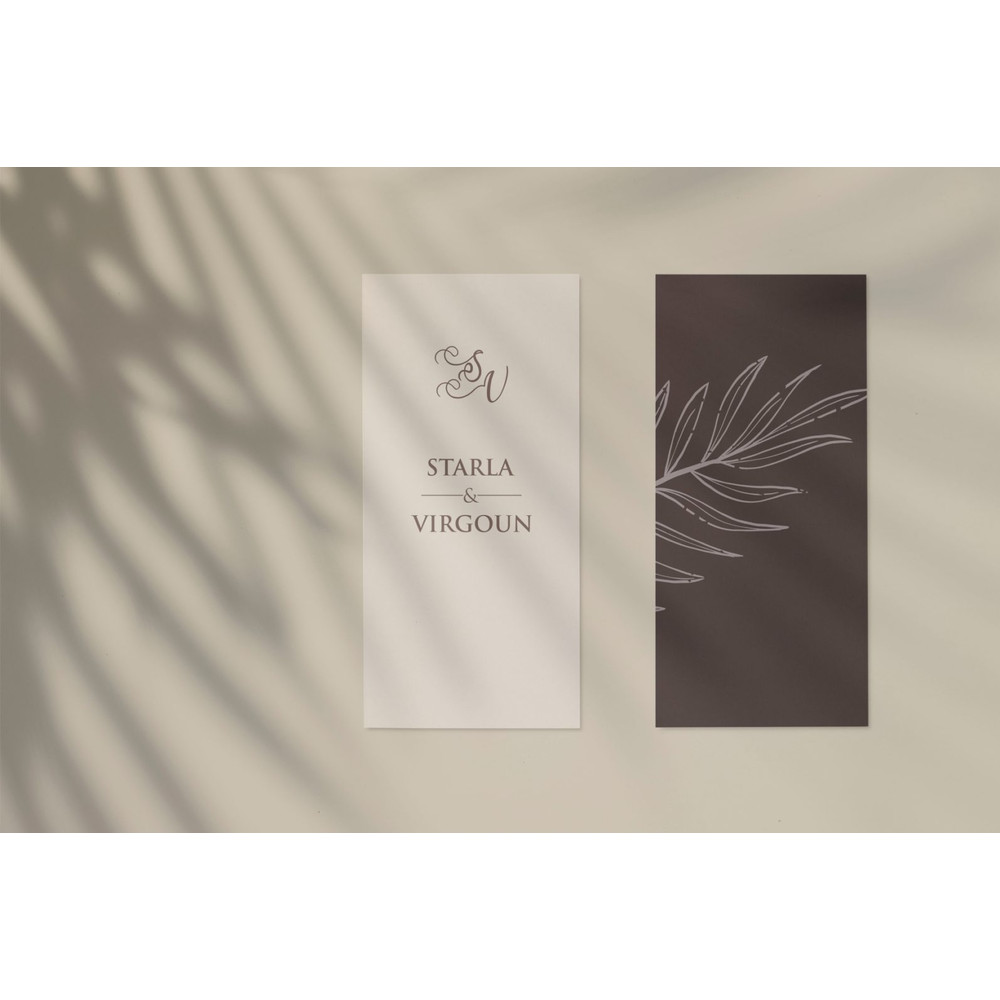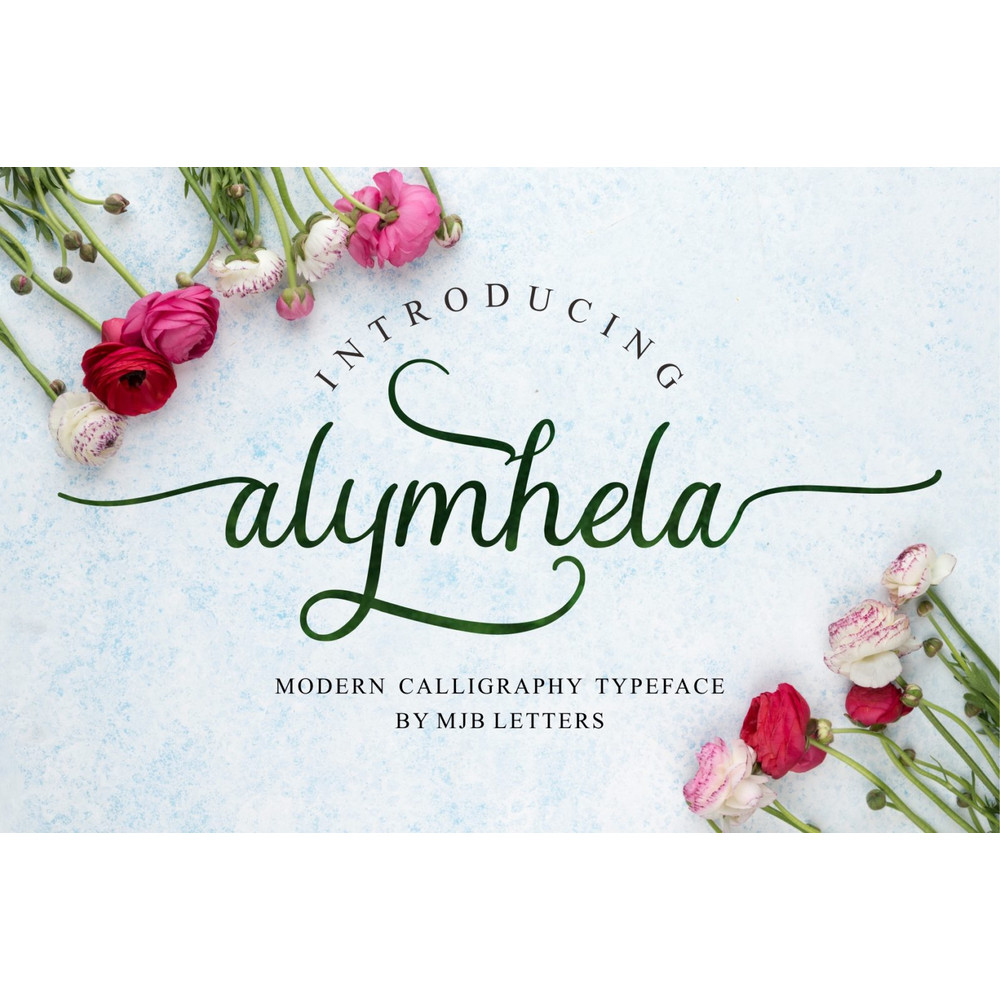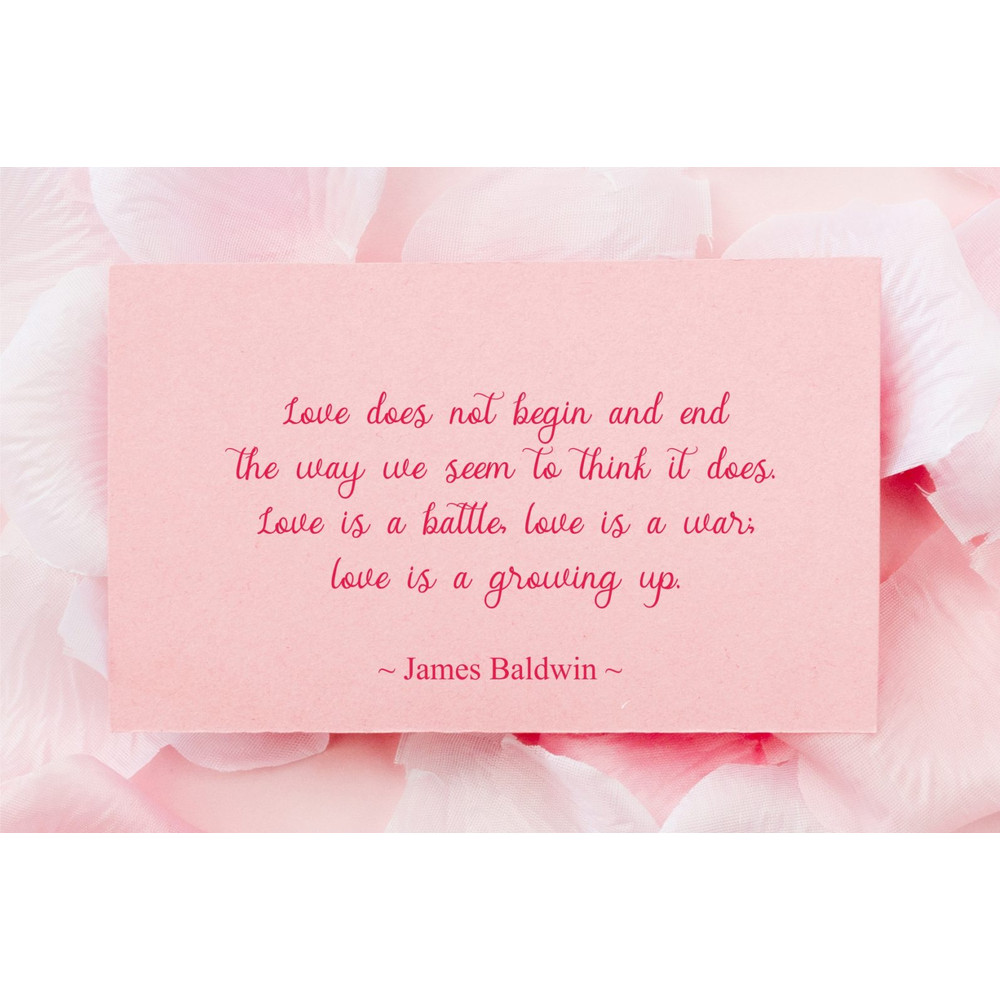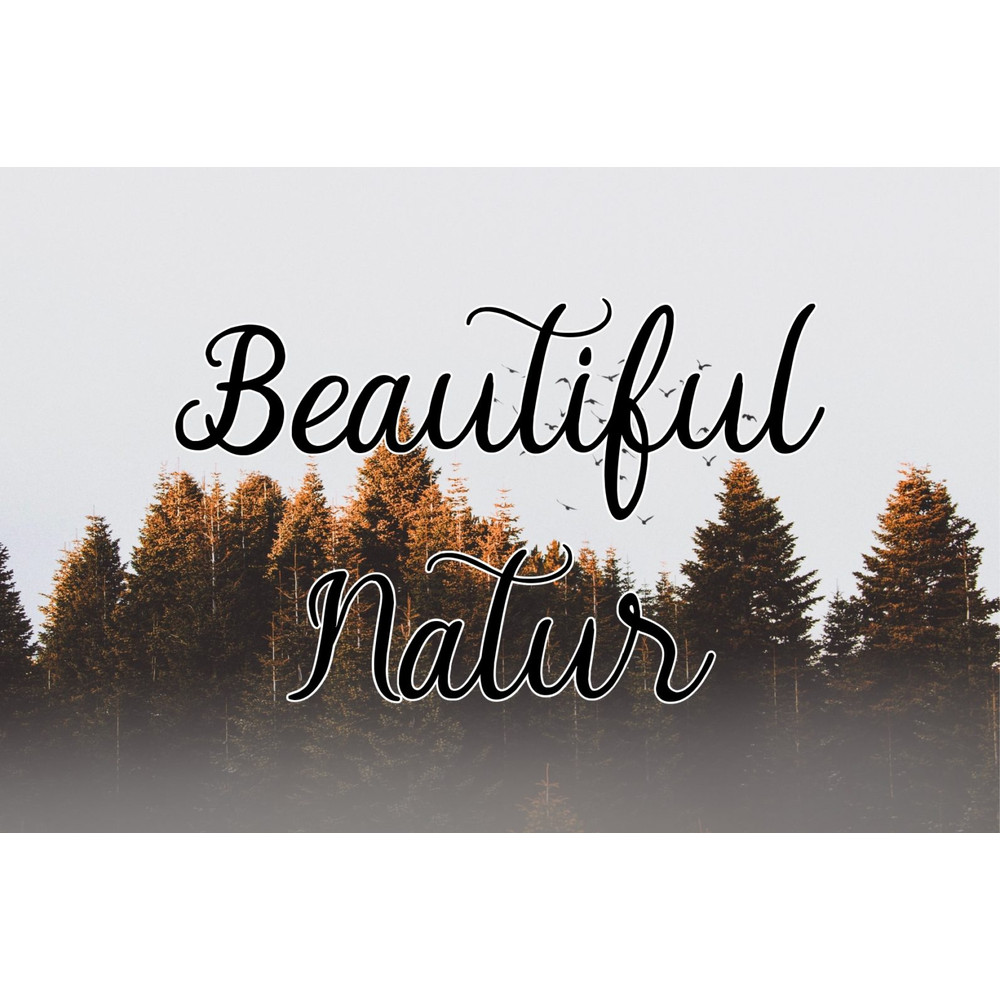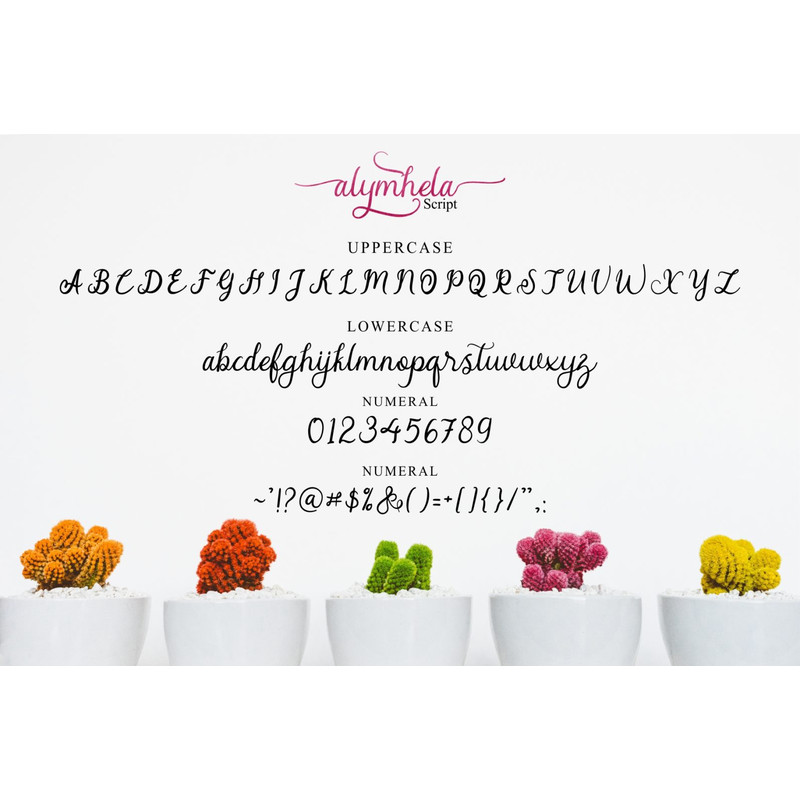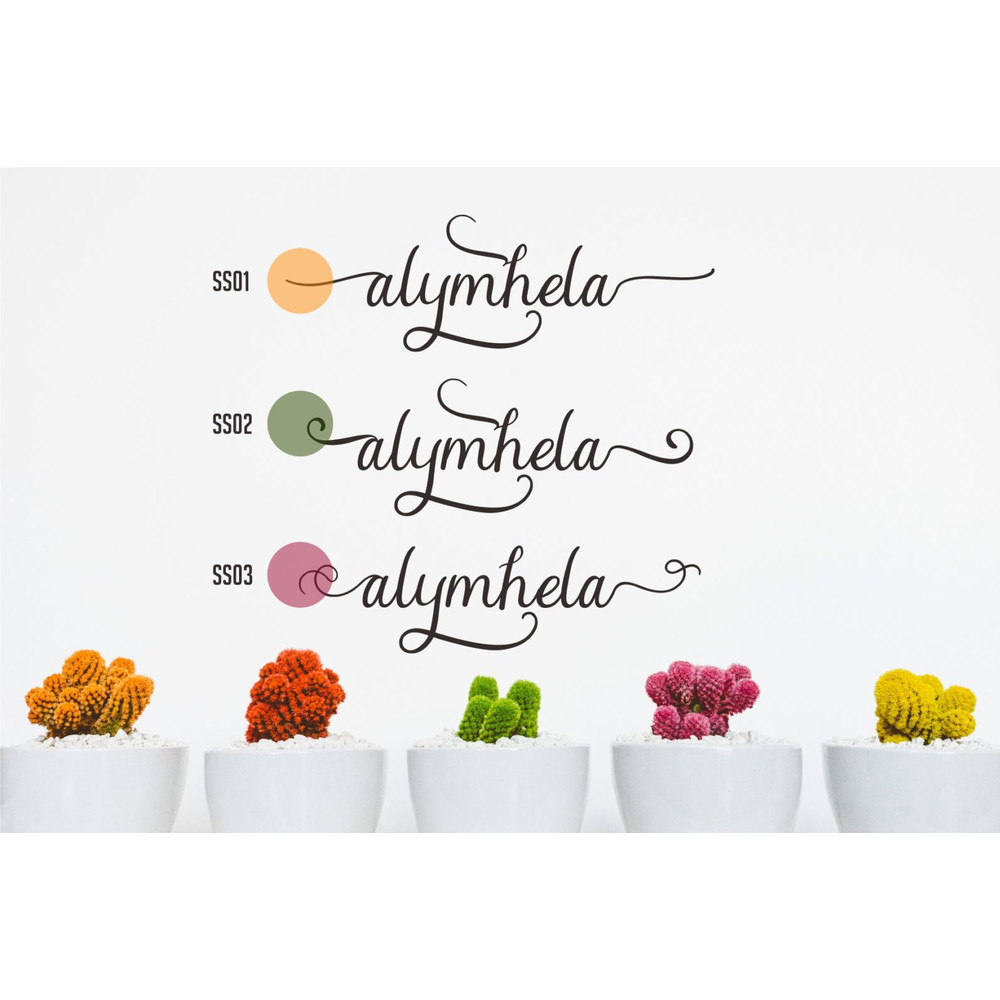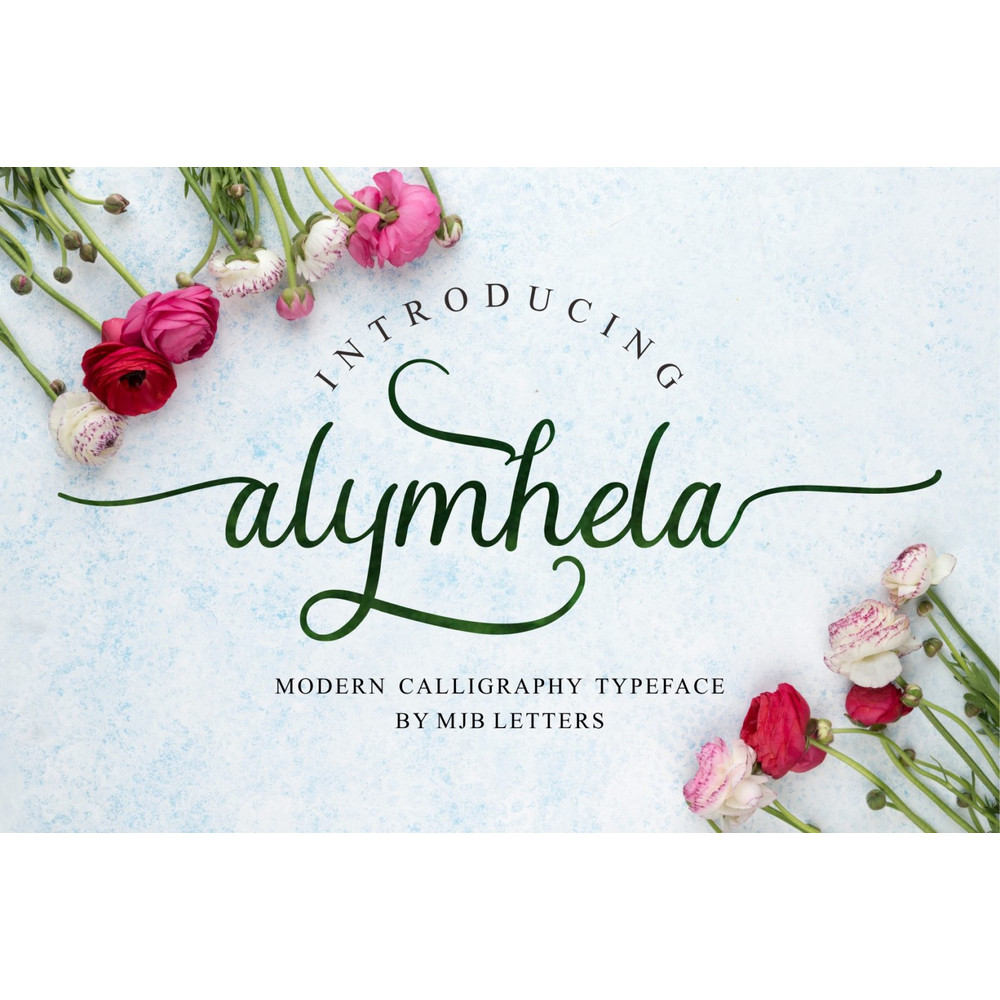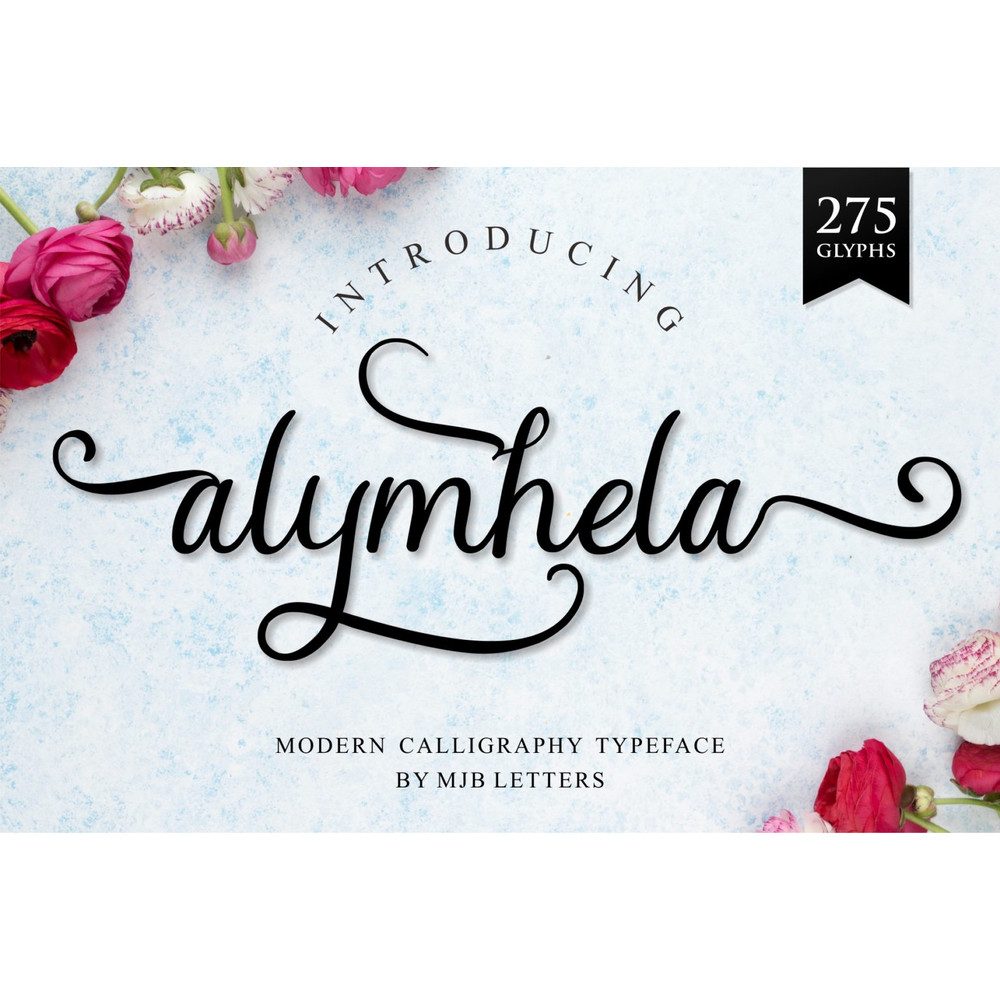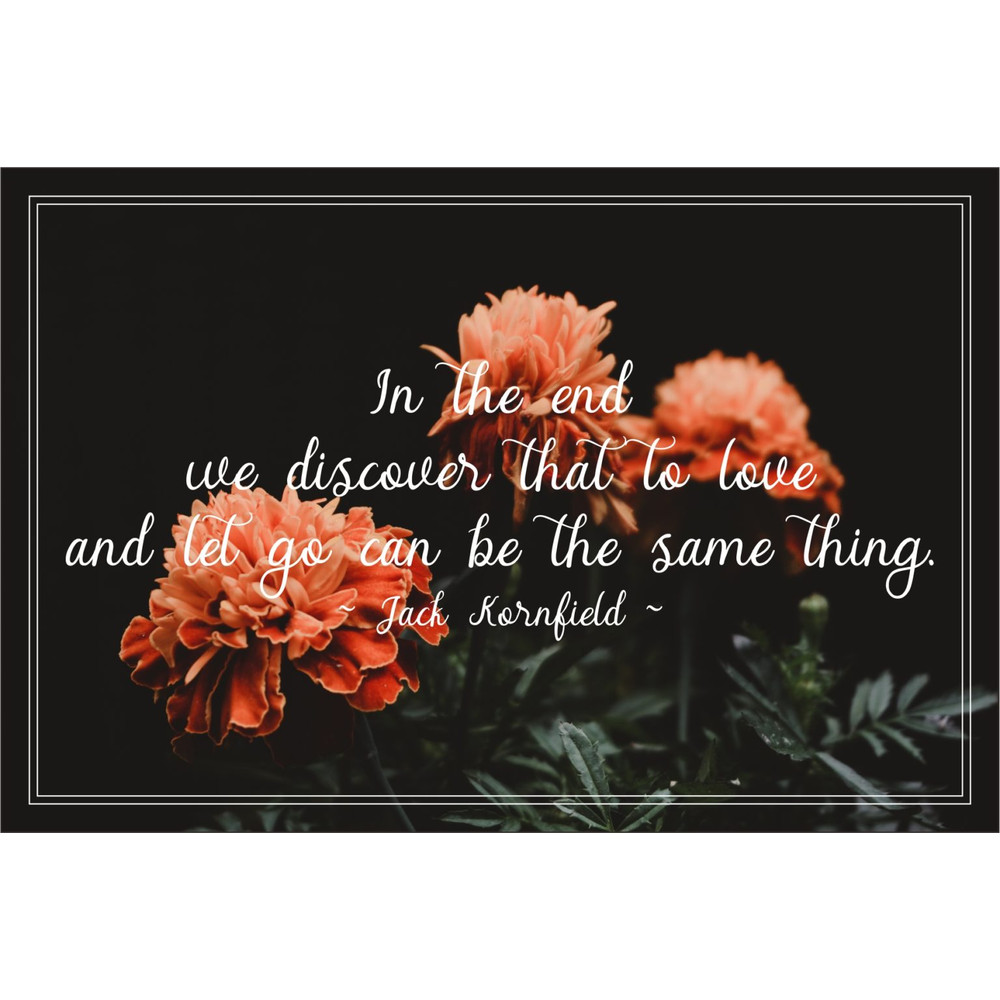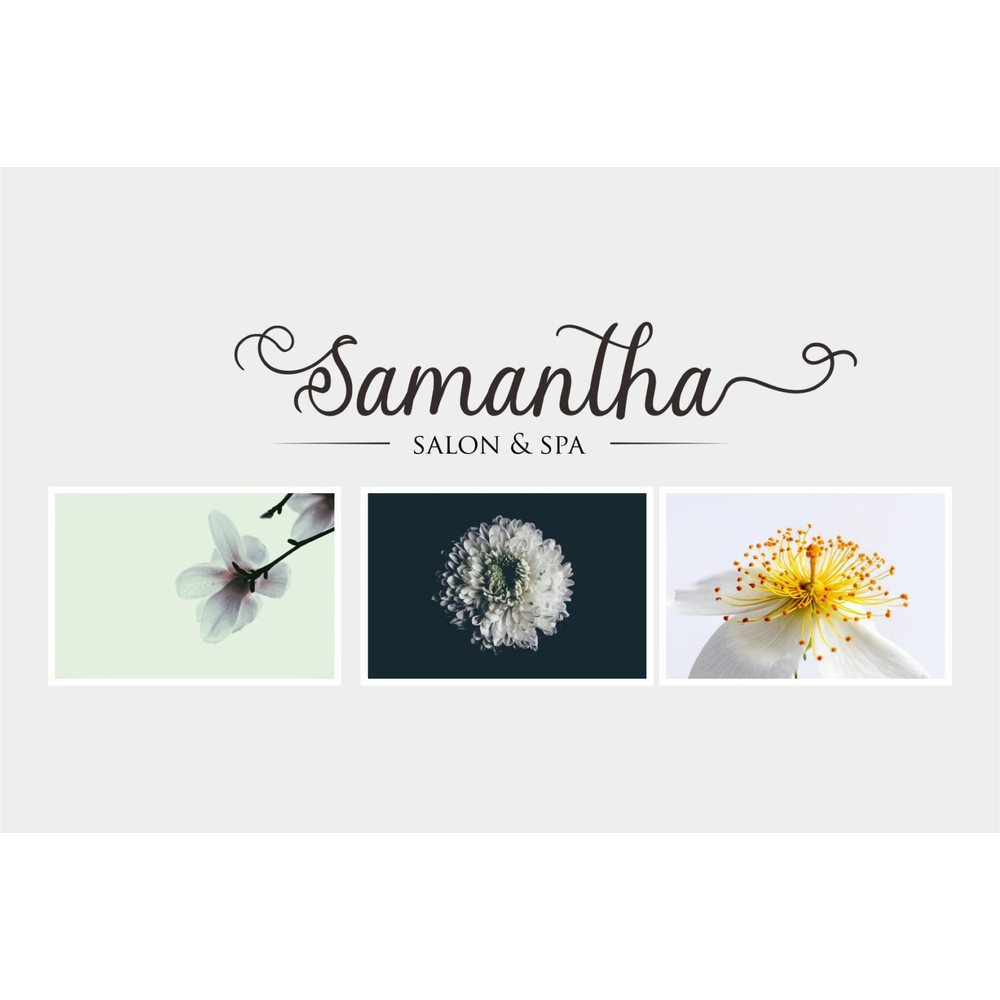
The Alymhela is a modern beautiful typeface. It’s perfect for feminine, elegant, and luxurious designs. It has a fresh and modern look which can be used for Invitations, greeting cards, branding materials, quotes, posters, and much more.